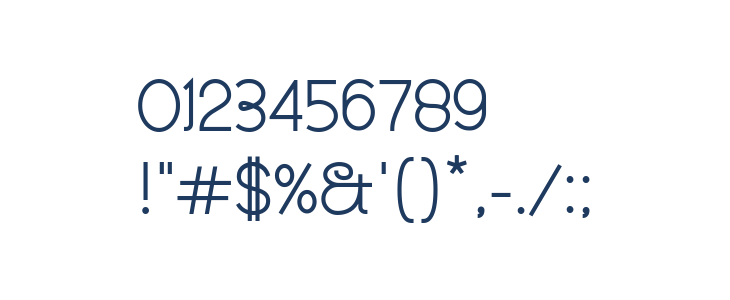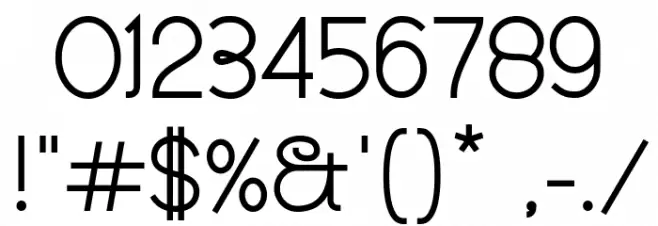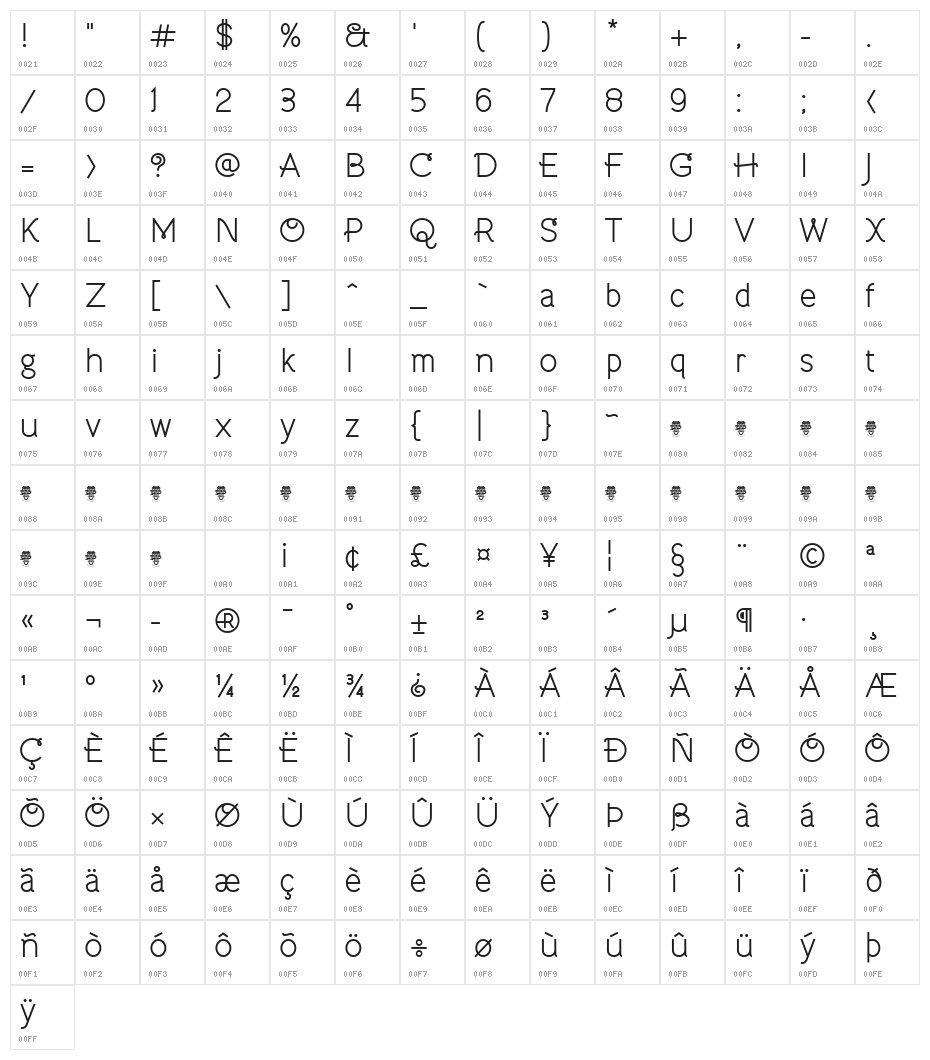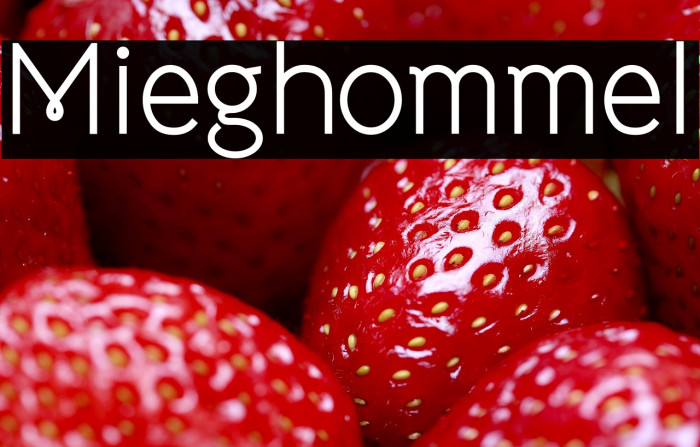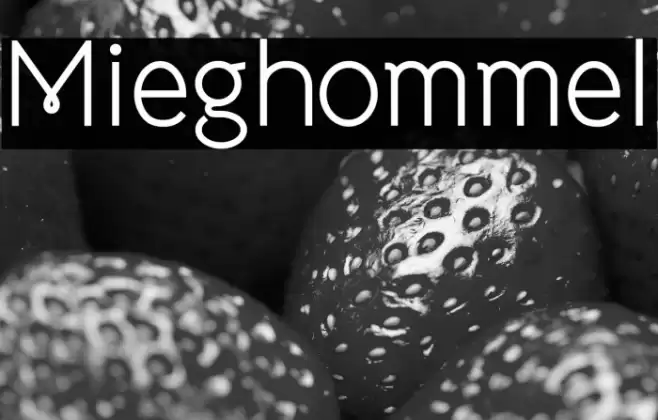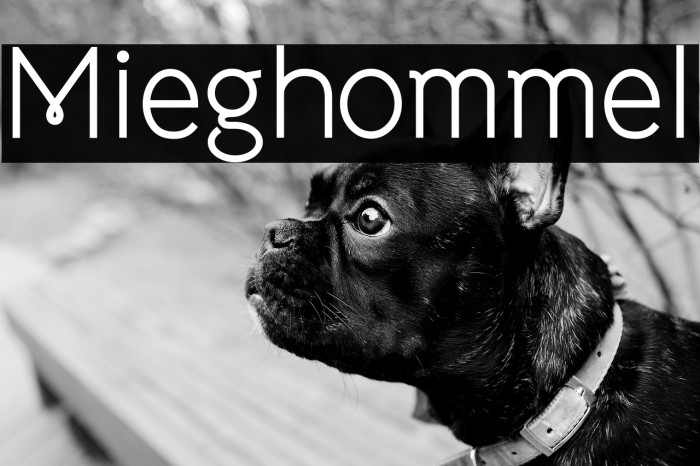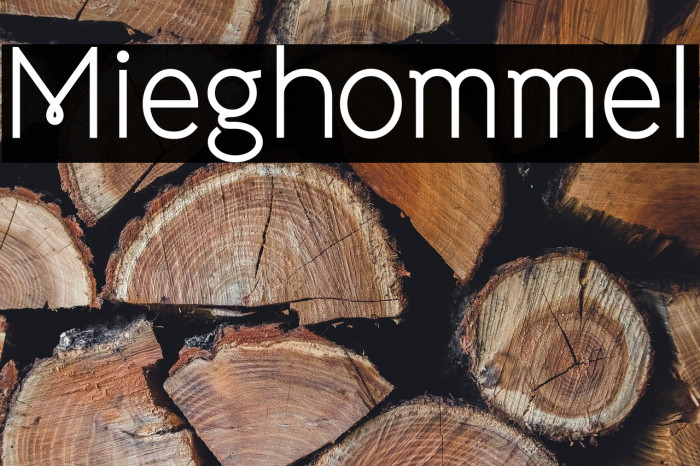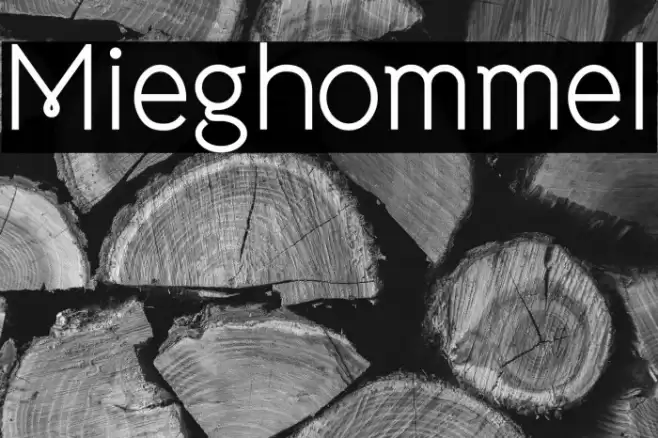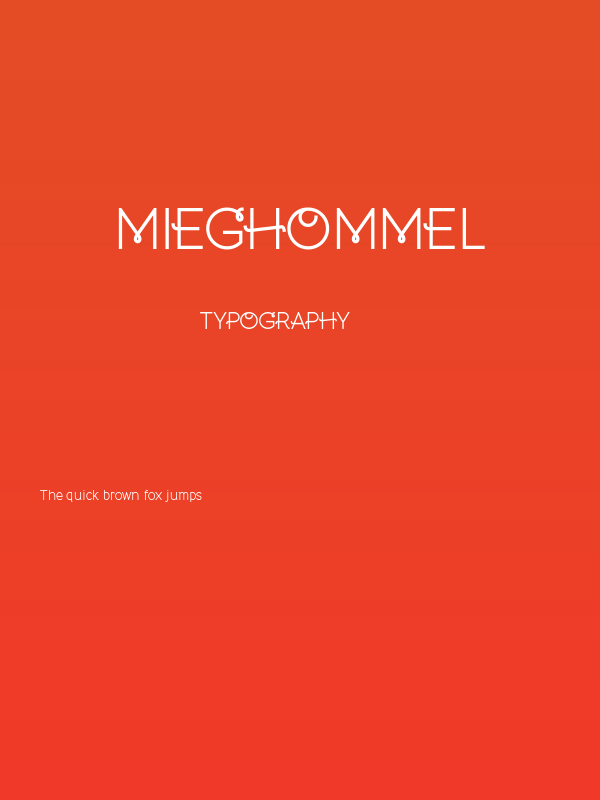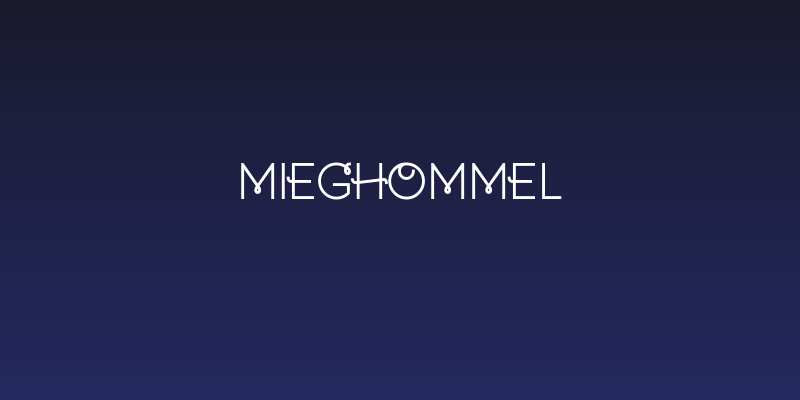
Mieghommel Font
Mieghommel Description
This font exhibits a modern and playful design with unique circular elements integrated into certain characters, such as the uppercase 'B', 'P', and 'R'. The overall structure is clean and geometric, with a sans-serif style that maintains clarity and legibility. The lowercase letters are consistent with the uppercase, featuring smooth curves and a balanced weight. The numerals are straightforward, matching the style of the alphabet with a uniform stroke width. Special characters are well-defined, maintaining the font's cohesive look. This font's distinctive features make it suitable for creative and contemporary design projects.
| Proposed Projects | Ideal for branding, advertising, and editorial design where a modern and playful aesthetic is desired. |